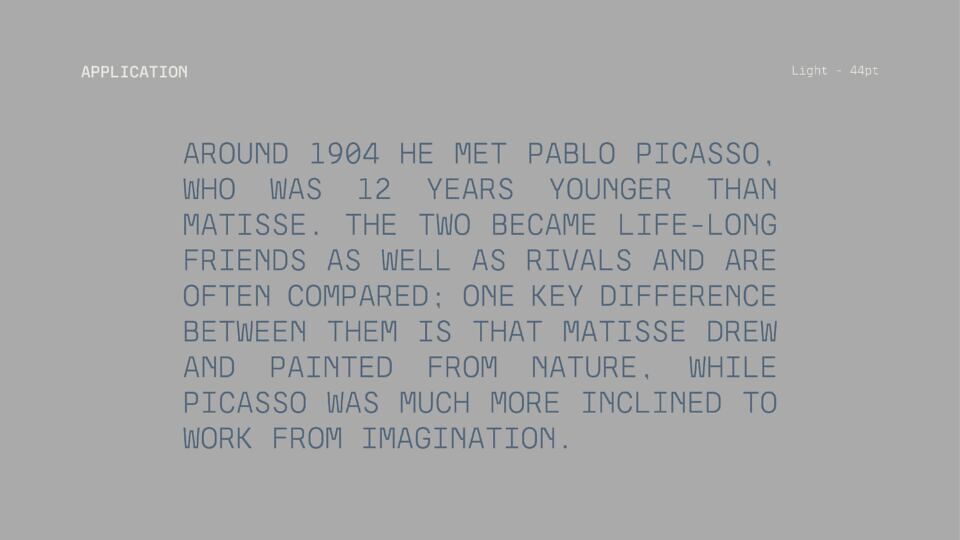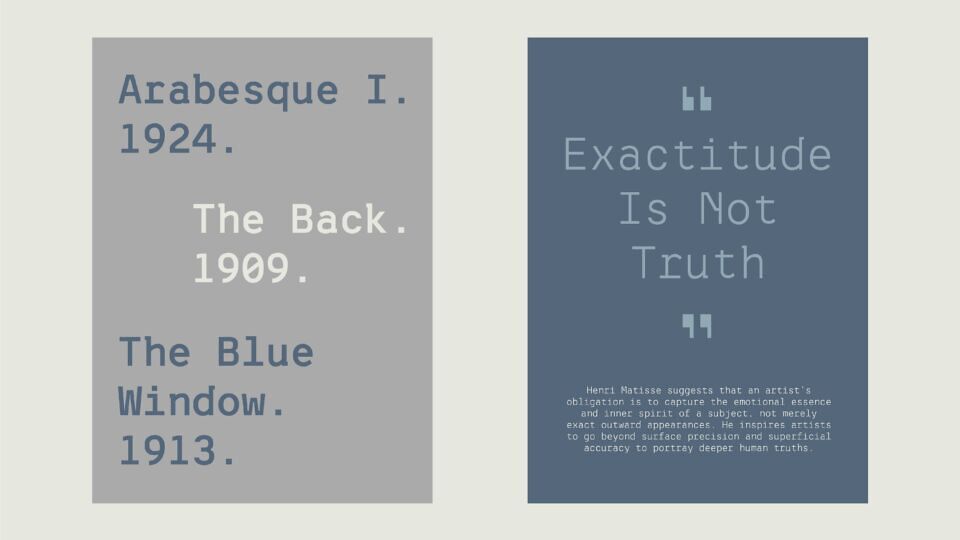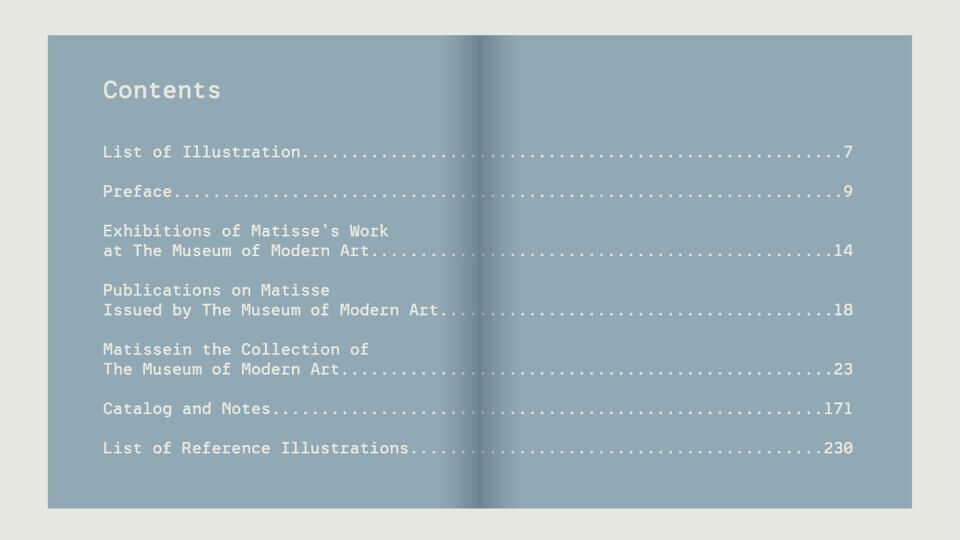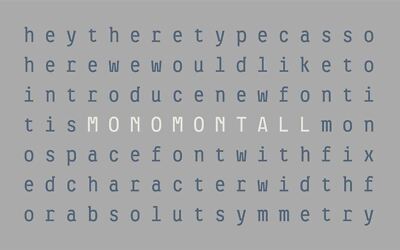
MONOMON is a contemporary monospaced typeface crafted for precision and flair. Tailored for developers and designers, its uniform spacing excels in code editors, terminal interfaces, and sleek branding. Featuring sharp, symmetry, geometric shapes, MONOMON offers a futuristic vibe while maintaining excellent legibility. Available in light, regular, and bold weights, it suits diverse needs—from minimalist posters to tech-driven websites.